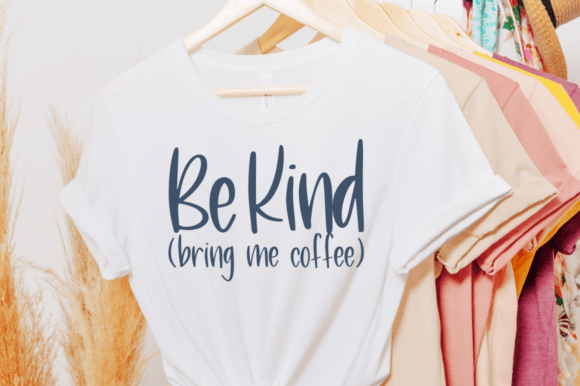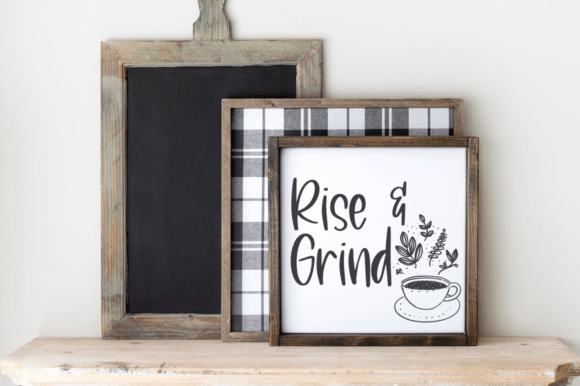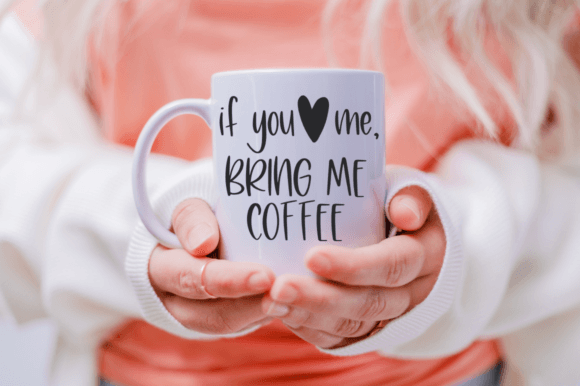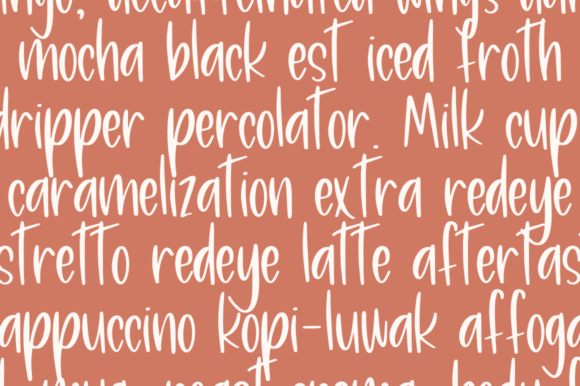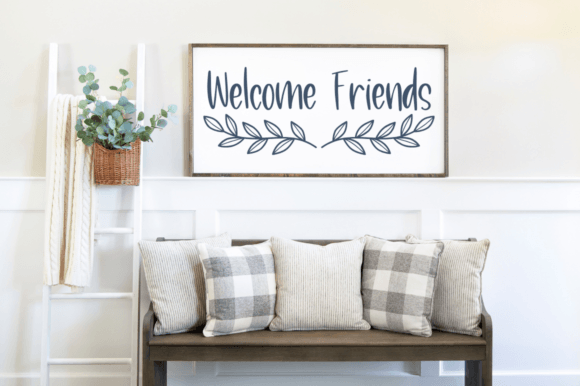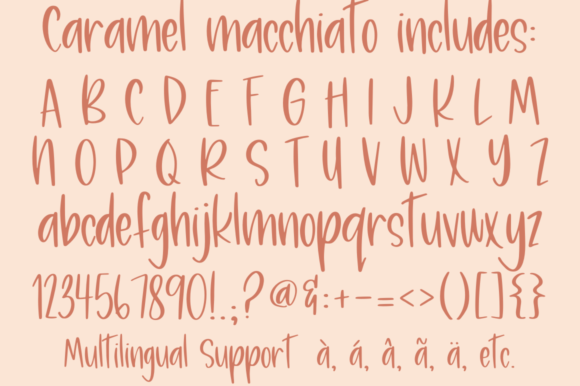
Introducing Caramel Macchiato Font: The Perfect Addition to Your Design Arsenal
Are you tired of using the same old fonts in your designs? Look no further than the Caramel Macchiato font, a fun and energetic handwritten sans-serif font that’s perfect for adding a touch of personality to your projects. In this article, we’ll dive into the features and benefits of the Caramel Macchiato font, and explore how it can be used to take your designs to the next level.
A Font that’s as Sweet as it is Versatile
Caramel Macchiato is a fun and playful font that’s sure to bring a smile to anyone’s face. Its handwritten sans-serif style gives it a friendly and approachable feel, making it perfect for designs that need to be approachable and engaging. Whether you’re creating a logo, greeting card, t-shirt design, or social media graphic, the Caramel Macchiato font is sure to add a touch of whimsy and fun.
Key Features of the Caramel Macchiato Font
- Handwritten sans-serif style: Giving it a friendly and approachable feel
- Fun and energetic vibe: Perfect for designs that need to be playful and engaging
- Versatile: Suitable for a wide range of design projects, from logos to social media graphics
- Easy to read: Despite its playful style, the font is clear and easy to read
Whether you’re a professional designer or a crafter looking to add a personal touch to your projects, the Caramel Macchiato font is the perfect addition to your design arsenal. Its versatility and playfulness make it suitable for a wide range of projects, including:
- Fun logos: Add a touch of personality to your brand with a custom logo featuring the Caramel Macchiato font
- Greeting cards: Create one-of-a-kind greeting cards for special occasions
- T-shirt designs: Add a playful touch to your t-shirt designs with the Caramel Macchiato font
- Stickers: Create fun and colorful stickers for kids and adults alike
- Social media graphics: Add a touch of personality to your social media graphics and stand out from the crowd
- Craft projects: Use the Caramel Macchiato font to add a personal touch to your craft projects, such as scrapbooking, journaling, and more
Why Choose the Caramel Macchiato Font?
With so many fonts to choose from, why should you choose the Caramel Macchiato font? Here are just a few reasons:
- Unique and eye-catching: The Caramel Macchiato font is sure to grab attention and add a touch of personality to your designs
- High-quality: The font is high-quality and clear, making it perfect for both print and digital designs
In conclusion, the Caramel Macchiato font is a fun and energetic handwritten sans-serif font that’s perfect for adding a touch of personality to your designs. Its versatility, playfulness, and ease of use make it suitable for a wide range of projects, from logos to social media graphics. Whether you’re a professional designer or a crafter looking to add a personal touch to your projects, the Caramel Macchiato font is sure to become a favorite in your design arsenal.